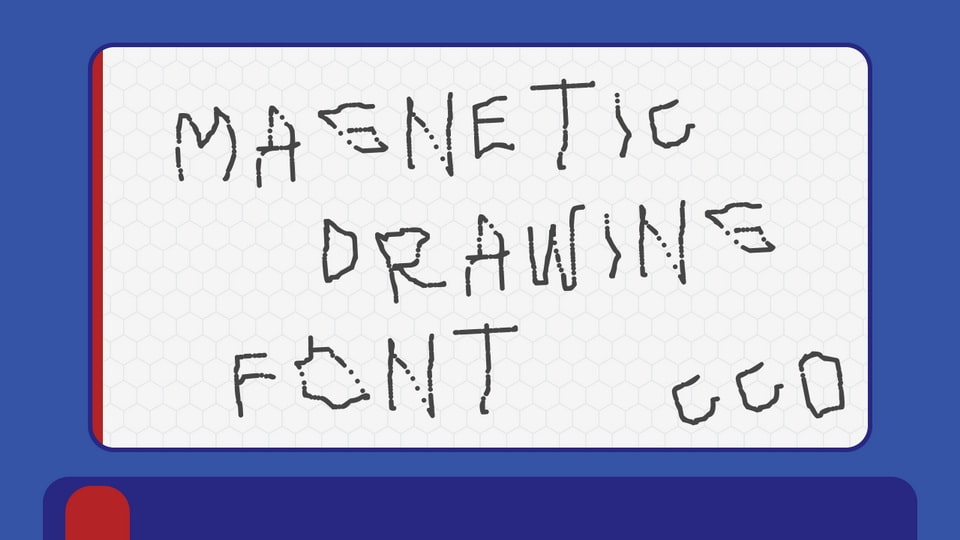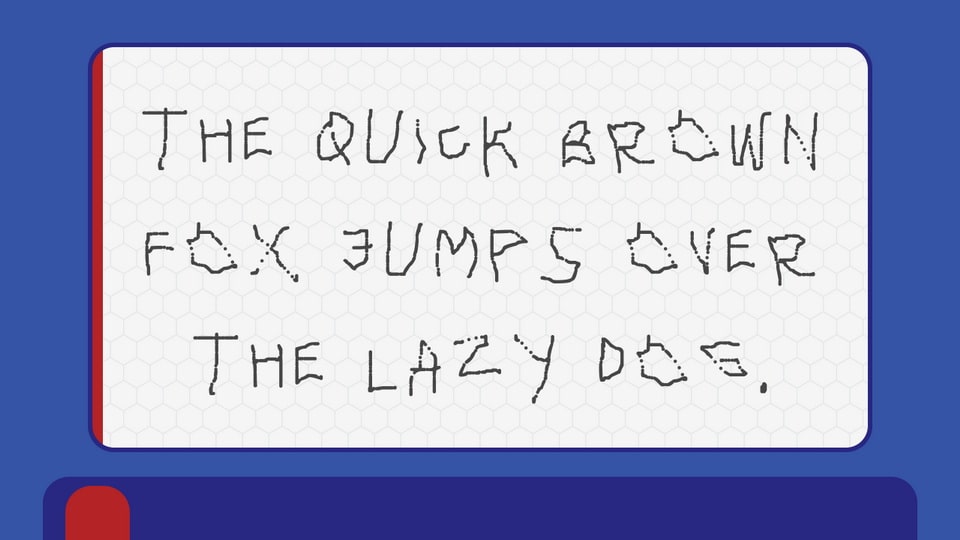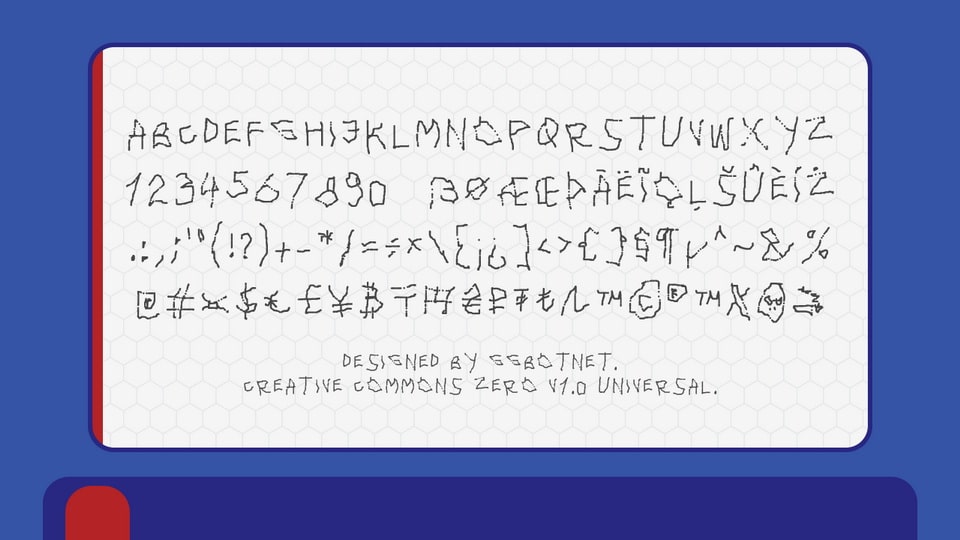
Magnetic Drawing is a quirky, hand-drawn font that captures the fun and playful essence of spontaneous doodling. With its irregular lines and whimsical strokes, the font feels like it’s been sketched on the page with carefree energy. Each letter is infused with a lively personality, making this font perfect for designs that embrace creativity and a lighthearted spirit.
Ideal for children’s projects, playful headlines, and unique branding, Magnetic Drawing font adds an element of fun and unpredictability to your text. The charming, scribbled aesthetic gives it an organic, hand-crafted feel that’s full of character and movement.